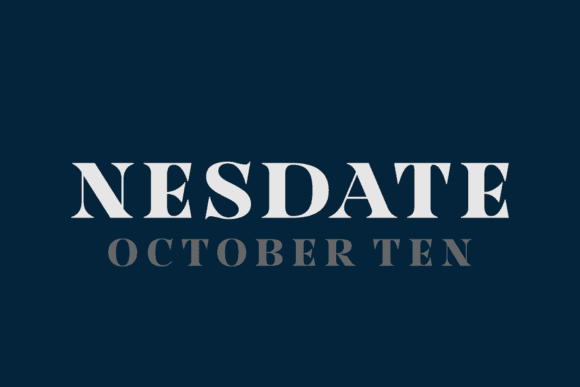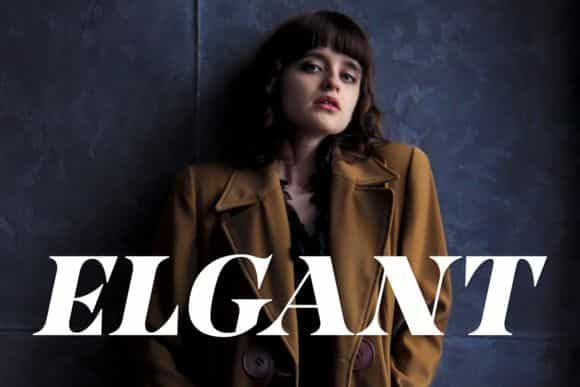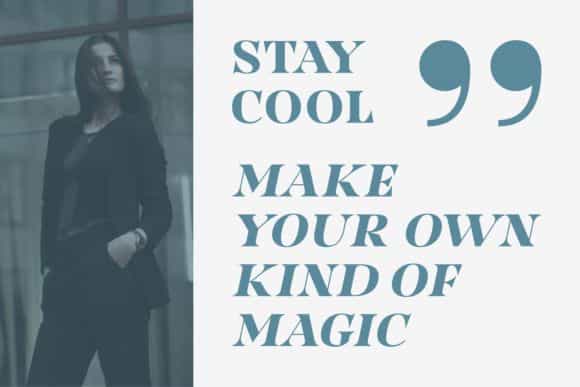
The Nesdate October Ten is a simple but at the same time the most attractive typeface. The letters are easy to read and are in a classic style. It is available in two weights; regular and italic and thus it is suitable for different designing requirements.